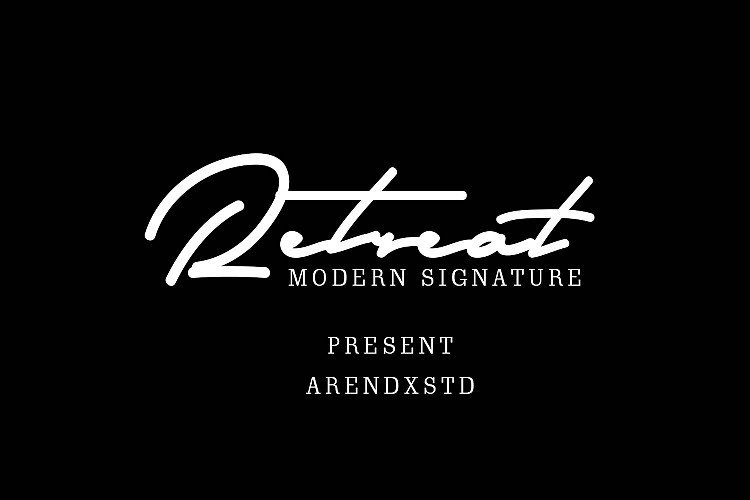
Retreat Signature Font
Retreat Signature Font– is a new variant of handmade script typography, with a signature style. This font has been enriched with alternative characters. Hopefully this helps to capture the soul of design. Troduce font Retreat is a modern and elegant signature Very unique and stylistic font with a magnificent dressing that will suit all your design needs. This font is ideal for branding and decorate your any project, are perfect for wedding invitation or your blog.